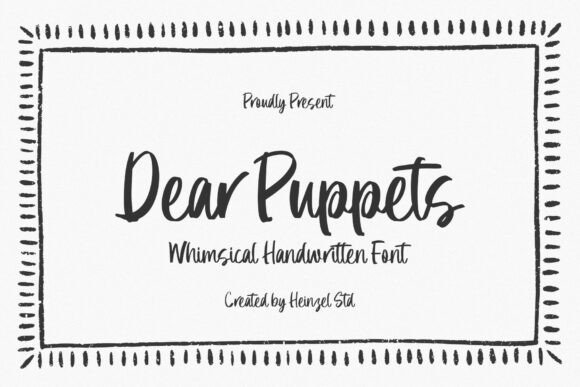
Do you remember the thrill of grabbing a set of colorful markers and a blank sheet of paper as a kid? The excitement of bringing your imagination to life, creating characters, and telling stories through your art? That same spark of creativity is what drives designers to push the boundaries of their craft.
Enter the Dear Puppets Font, a delightful handwritten font that brings a playful touch to any design project. This charming font is perfect for children’s branding, logos, greeting cards, and more. With its natural brush-inspired strokes and authentic hand-drawn feel, it adds warmth and personality to your designs. For designers, Dear Puppets Font is a valuable tool to help bring their creative visions to life.
Dear Puppets Font Key Features
- Font Family: Dear Puppets
- Unique Characteristics: The font features a distressed, hand-drawn aesthetic with intricate details, giving it a unique and charming appearance.
Designer Review: Dear Puppets Font
Dear Puppets Font is an eclectic and whimsical font that’s sure to capture attention. Here are some of its standout features: ✨
- Unique character set: The font features a wide range of characters, including special symbols and ligatures that add to its charm.
- High-quality rendering: The font renders well in both digital and print formats, making it suitable for a variety of applications.
- Playful feel: Dear Puppets Font has a lighthearted, storybook-like quality that’s perfect for designs that require a touch of whimsy.
However, like any font, Dear Puppets has its limitations: ⚠️
- Legibility issues: At smaller font sizes, the font can become difficult to read due to its complex character set.
- Limited support: Some users may experience issues with font support in certain applications or operating systems.
Overall, I think Dear Puppets Font is a great addition to any designer’s toolkit. Its unique character set and playful feel make it perfect for designs that require a touch of personality. While it may have some limitations, I think the benefits far outweigh the drawbacks.
Dear Puppets Font: A Practical Application Guide
Getting the Most Out of Dear Puppets Font
To get the most out of Dear Puppets Font, use it for:
1. Whimsical and playful designs.
2. Children’s book illustrations.
3. Handwritten-style text.
4. Vintage-inspired designs.
Dear Puppets Font is commonly used for:
1. Children’s party invitations.
2. Handmade card designs.
3. Customized gift tags.
4. Social media graphics.
Alternatives to “Dear Puppets Font” for Designers
Great Vibes Font is a modern, elegant script font perfect for creating a whimsical and romantic atmosphere. It’s ideal for wedding invitations, greeting cards, and other designs that require a touch of sophistication.
Compared to Dear Puppets Font, Great Vibes Font has a more refined and polished look, making it suitable for high-end designs. While Dear Puppets Font has a playful and quirky feel, Great Vibes Font is more understated and elegant.
Alex Brush Font is a beautiful, handwritten font that’s perfect for creating a personal and emotional connection with your audience. It’s ideal for quotes, poetry, and other designs that require a sense of intimacy and warmth.
Compared to Dear Puppets Font, Alex Brush Font has a more organic and natural feel, making it suitable for designs that require a sense of authenticity. While Dear Puppets Font is more playful and experimental, Alex Brush Font is more subdued and elegant.
Carolyna Pro Font is a modern, elegant serif font perfect for creating a sophisticated and luxurious atmosphere. It’s ideal for business cards, brochures, and other designs that require a sense of professionalism and expertise.